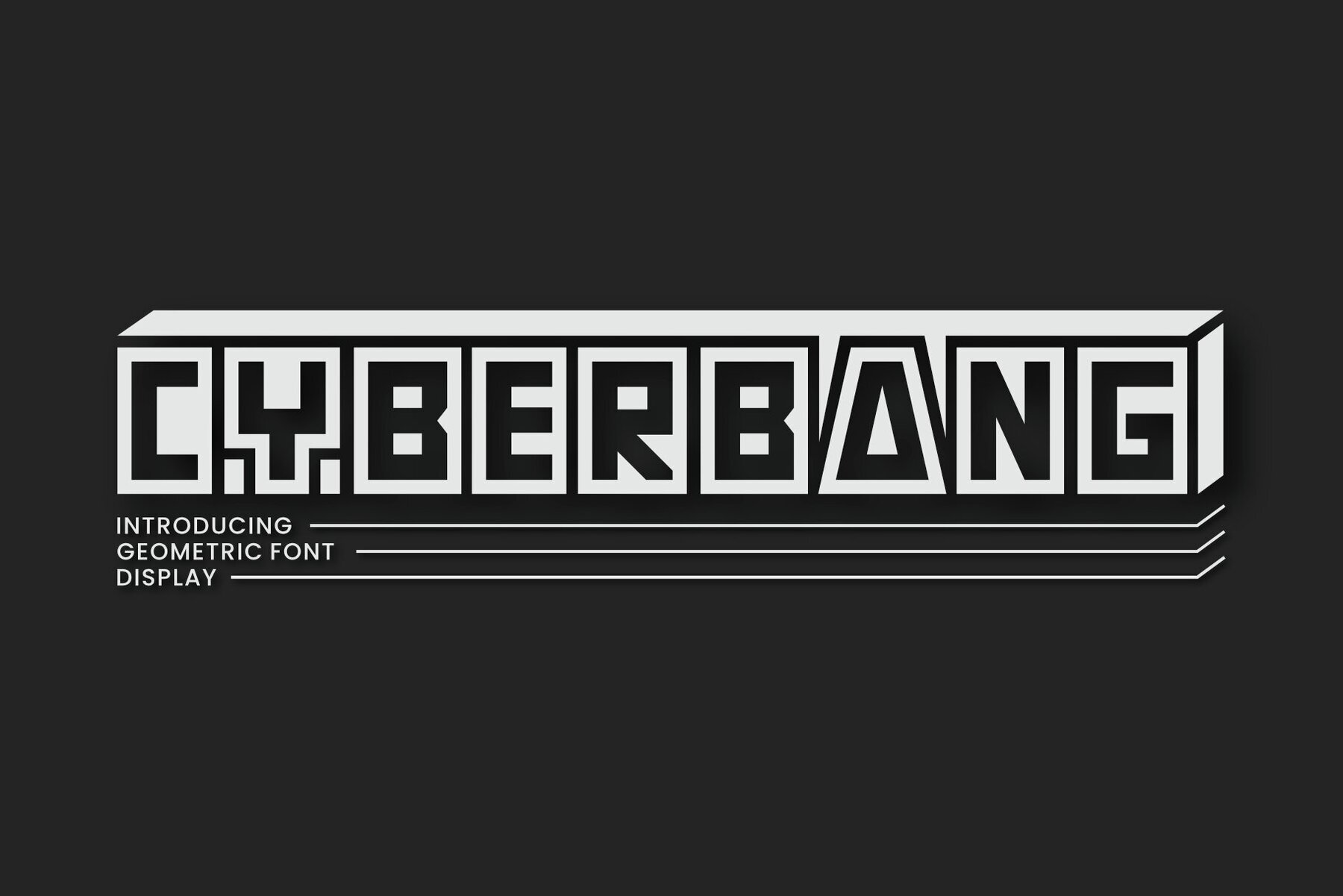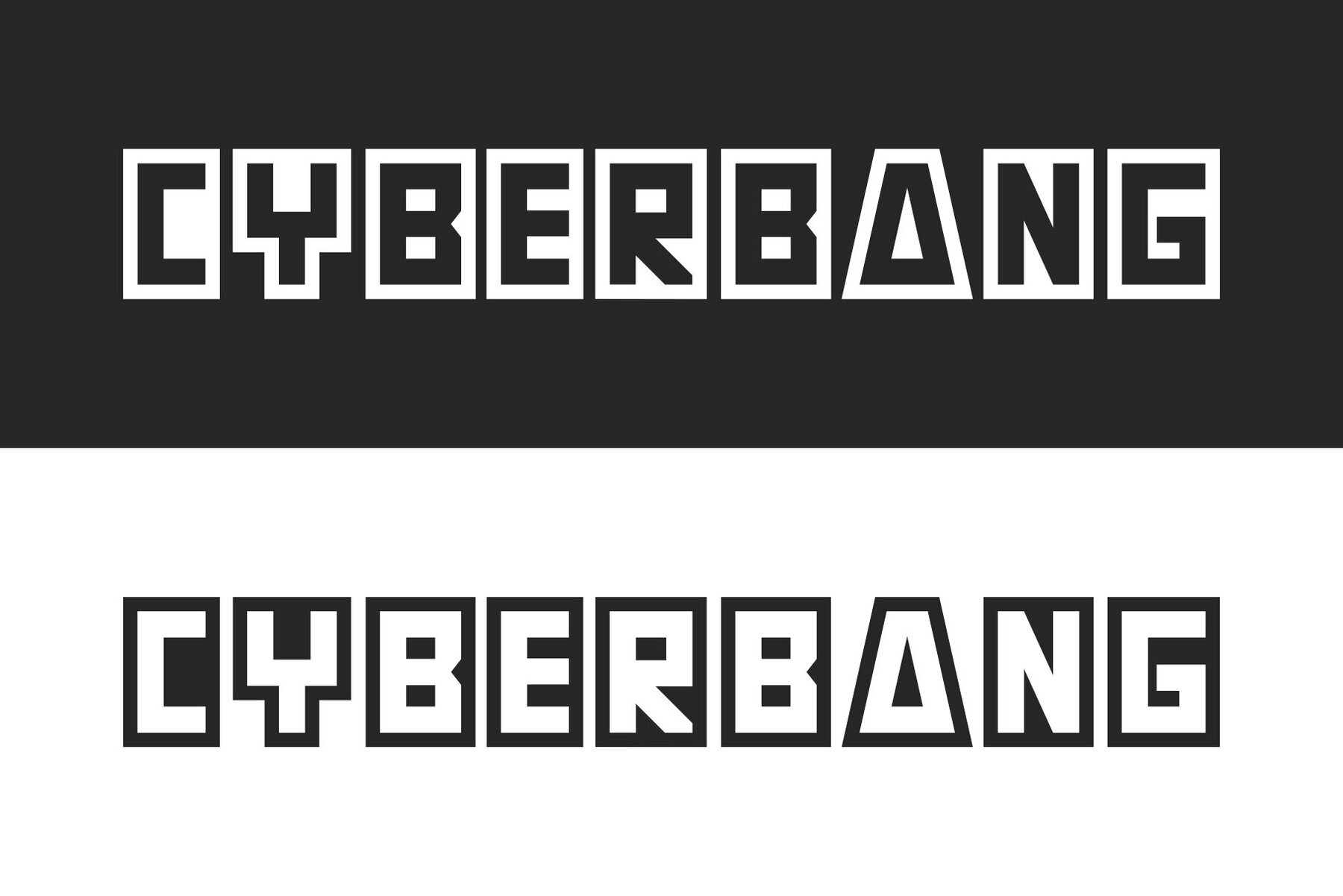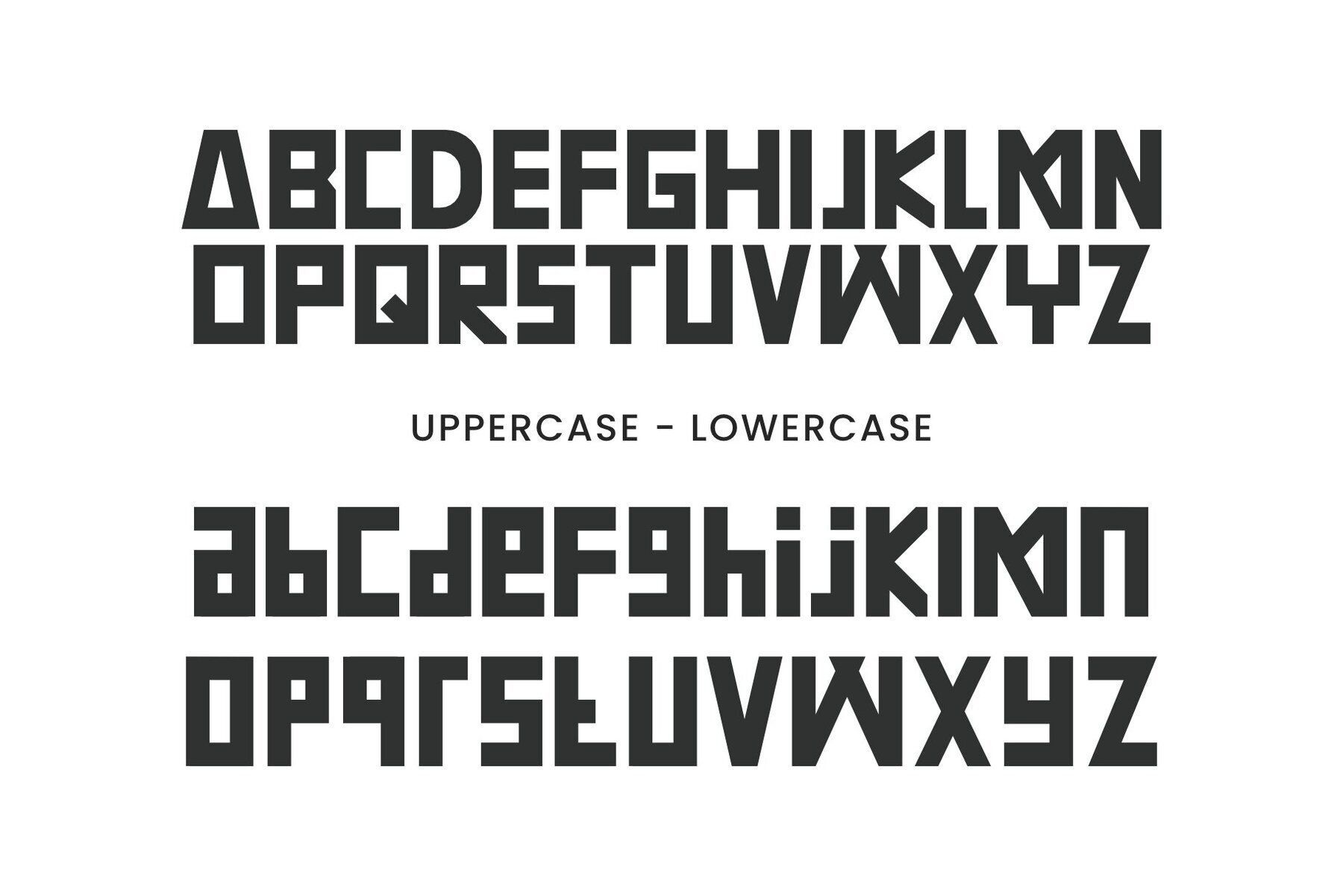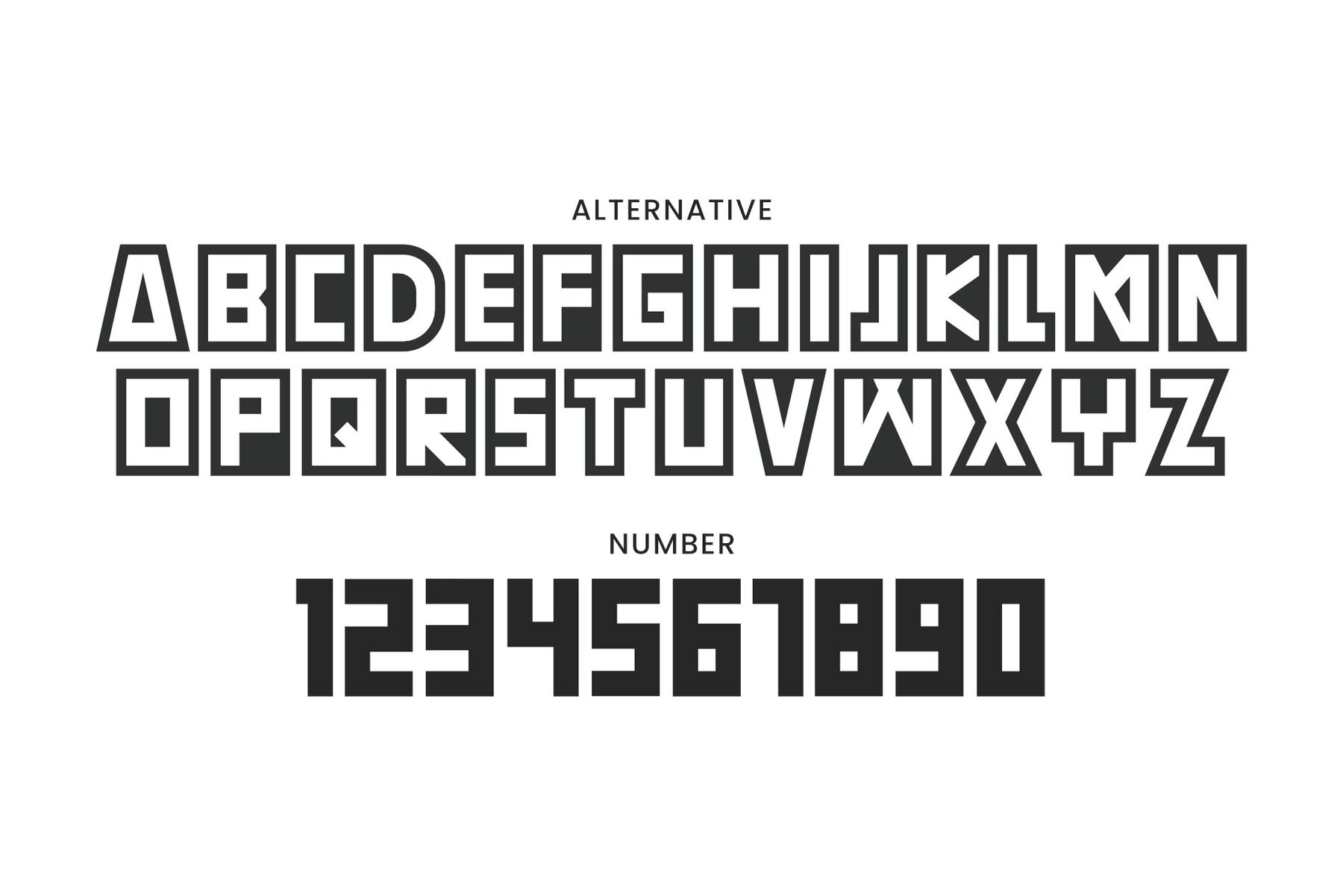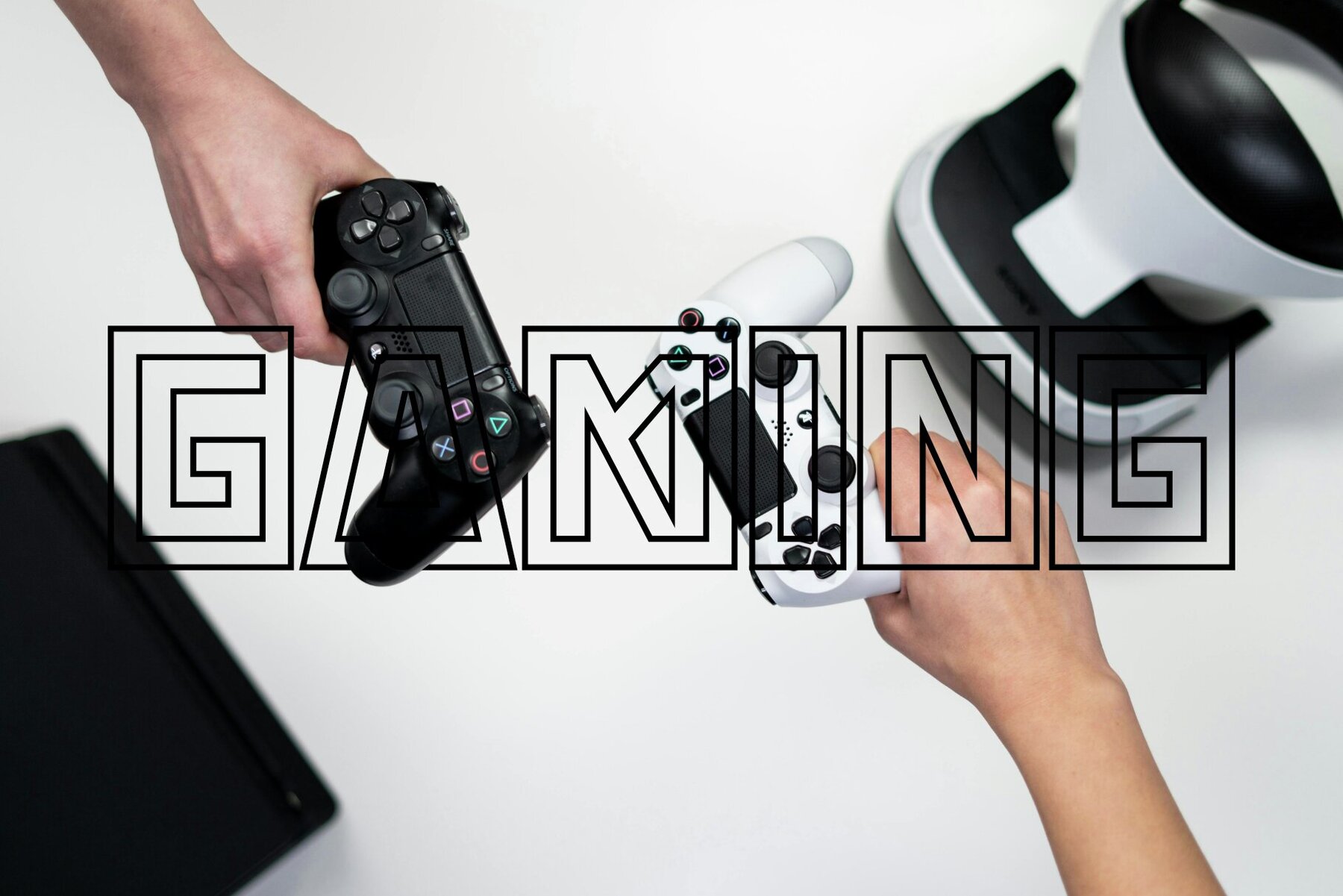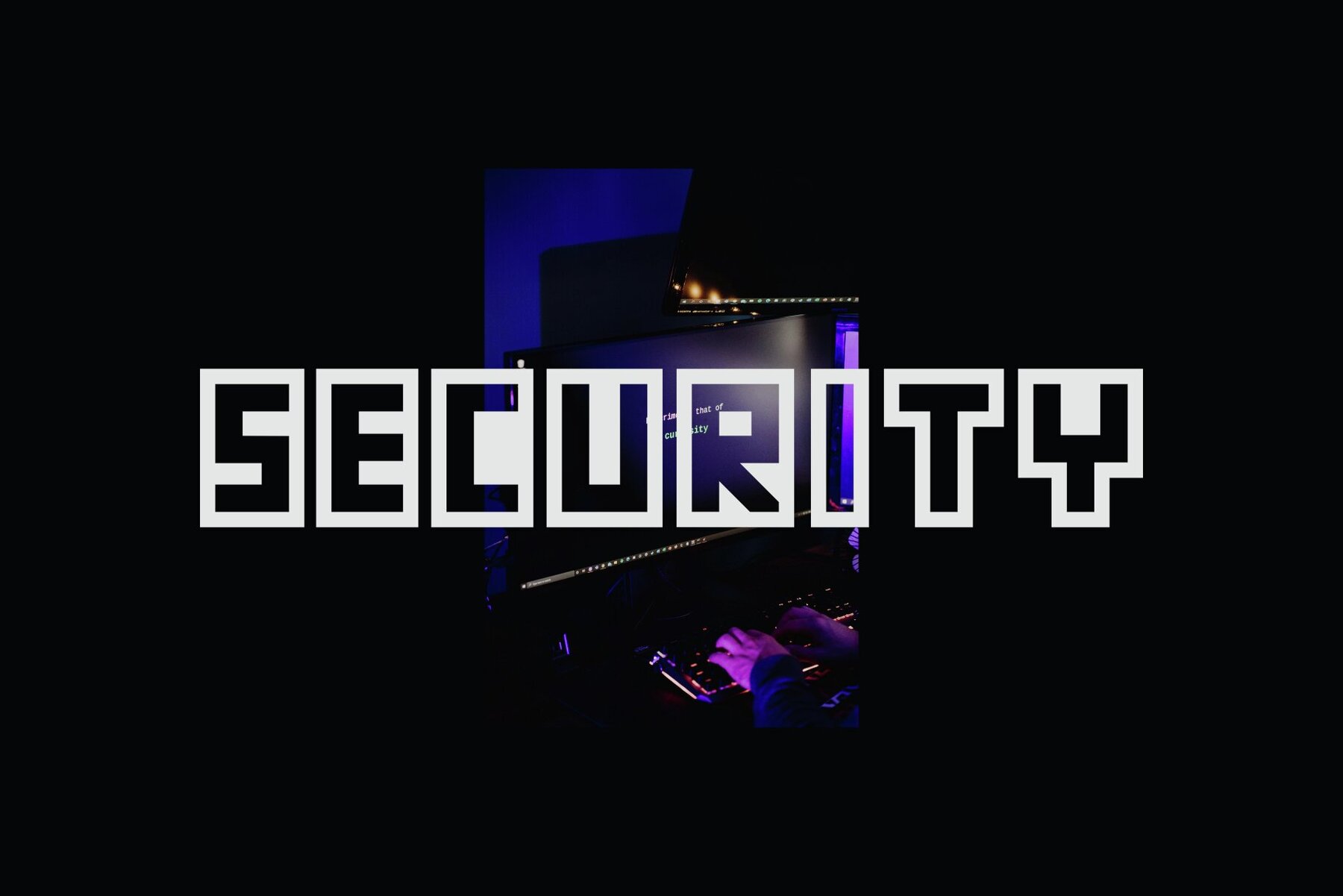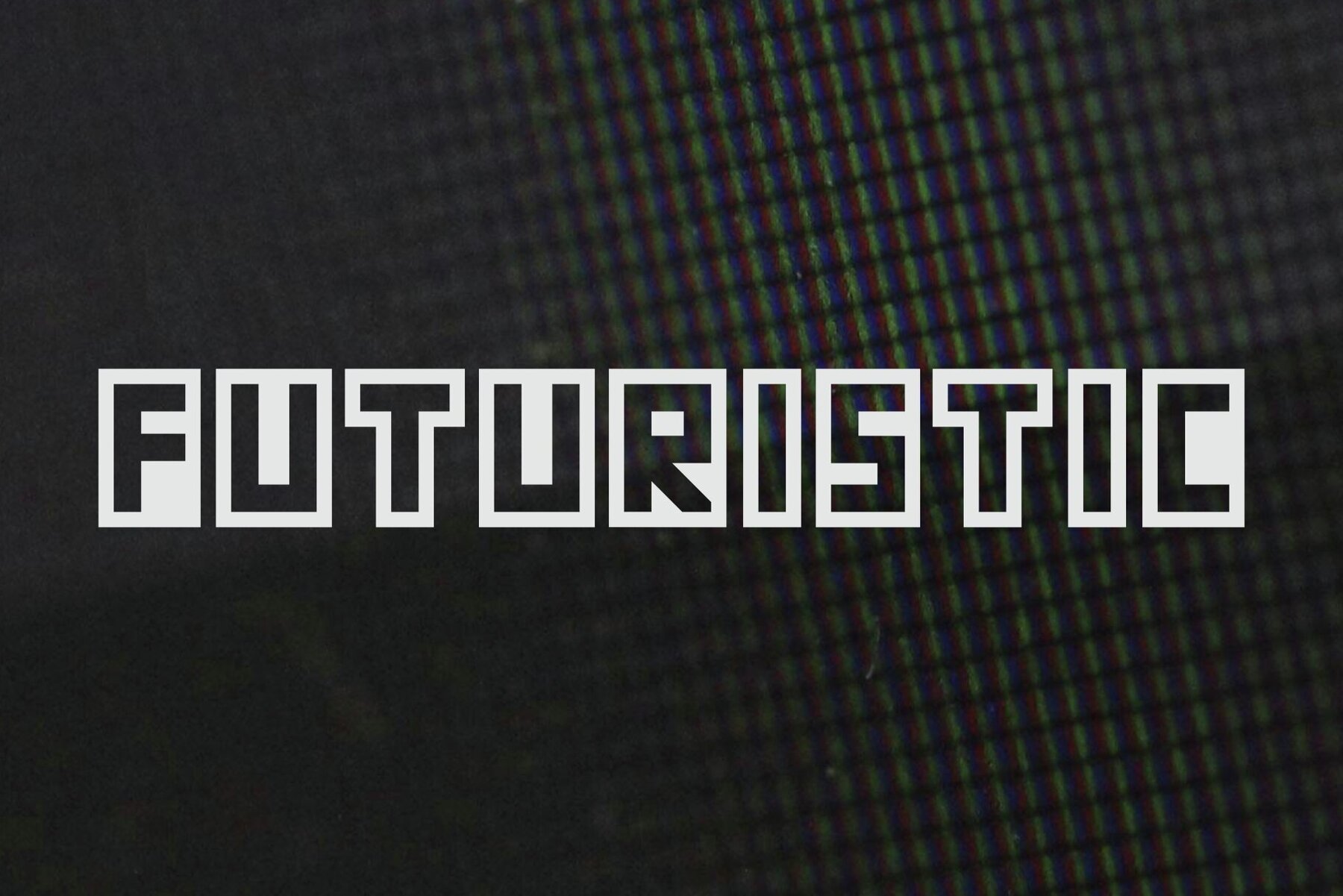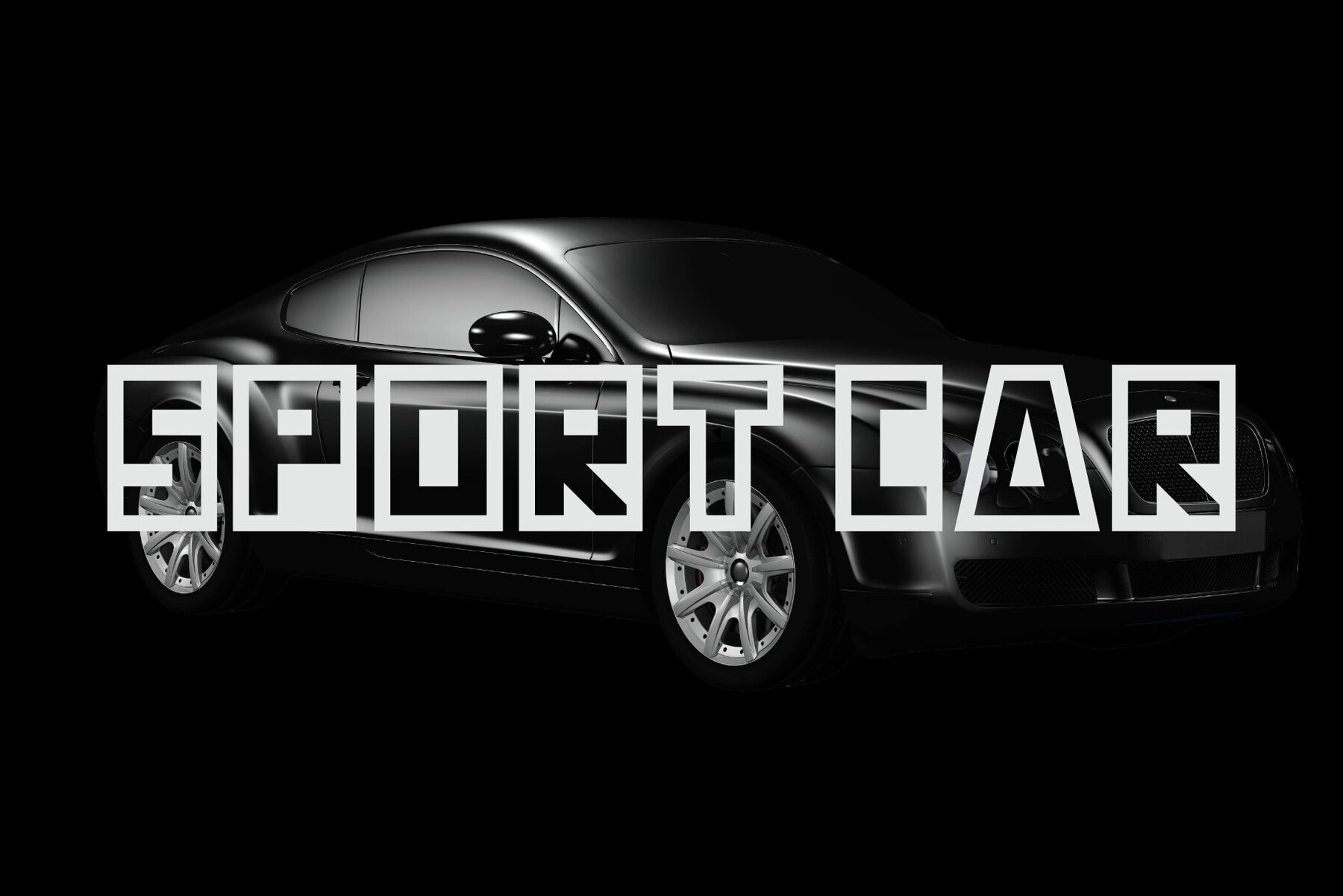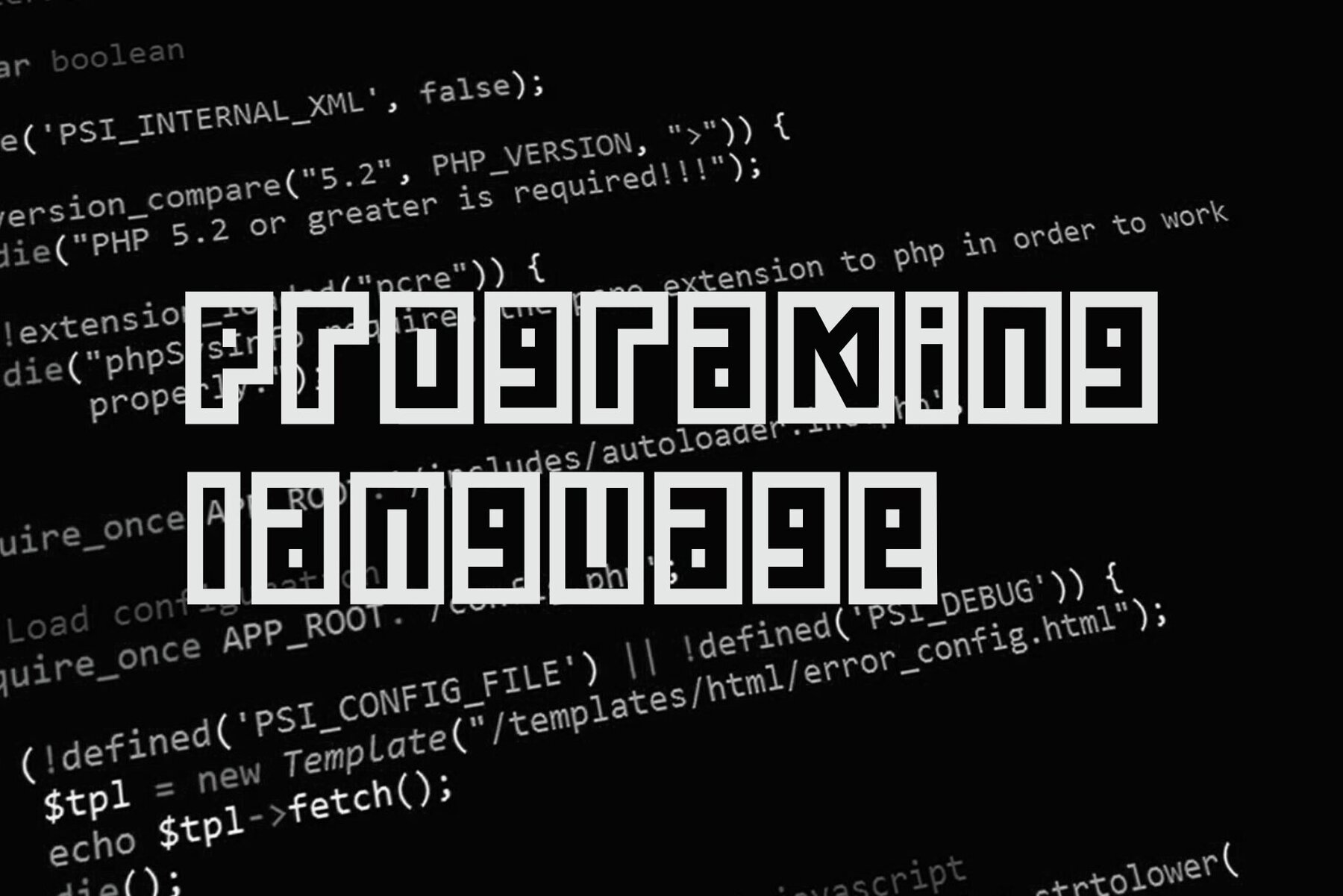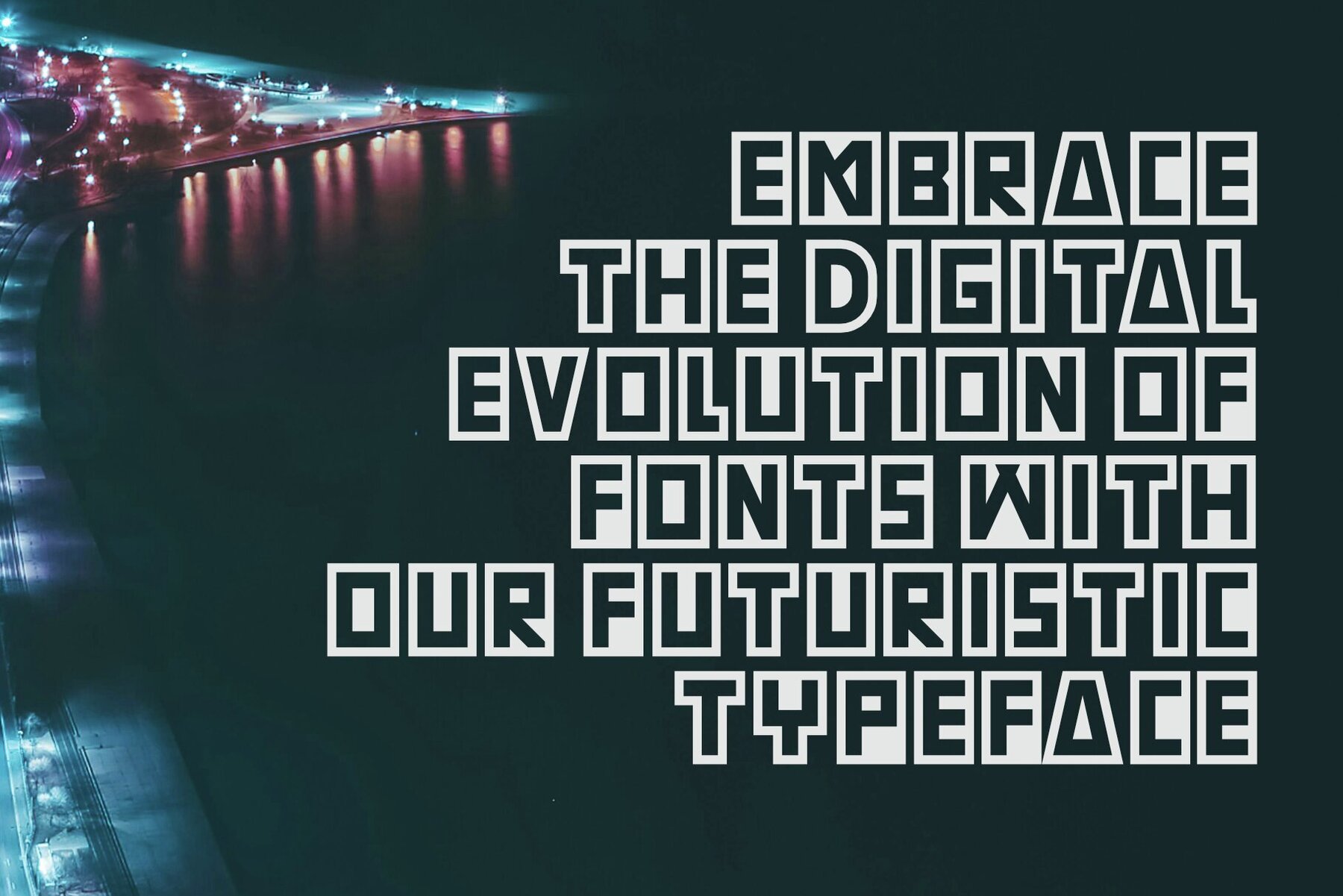
Cyberbang Font
Cyberbang Regular
Discover Cyberbang, a bold sans-serif font inspired by cyberpunk's daring vision. This modern typeface blends boldness and symmetric precision, offering a futuristic and visually striking display. Its thick, dynamic characters encapsulate the essence of cyberpunk, making it the perfect choice for projects that require a sleek, tech-driven aesthetic.Cyberbang